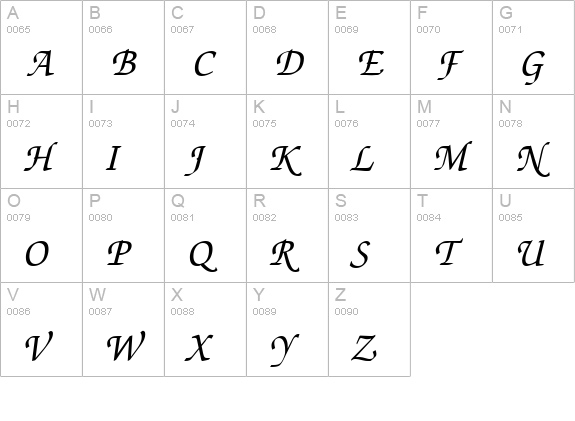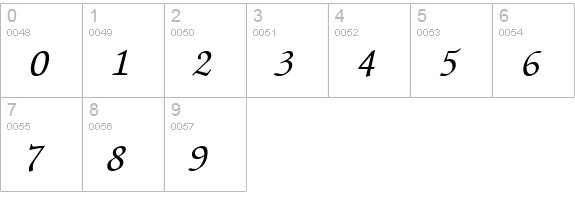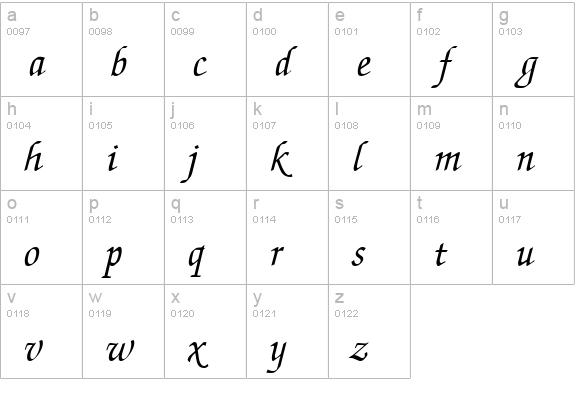
QTChanceryType Italic Font Details
QTChanceryType Italic is a distinctive, italic variant in the QTChanceryType typeface family \xE2\x80\x94 well suited to design and typography projects.
QTChanceryType Italic is a stunning font that exudes elegance and sophistication. Its delicate and flowing letterforms create a sense of grace and charm, making it perfect for adding a touch of class to any design project. The italic style adds a sense of movement and dynamic energy, capturing attention and drawing the eye with its stylish flair. This font is not only visually appealing but also versatile, making it suitable for a wide range of applications. Whether you're designing a wedding invitation, creating a logo for a high-end brand, or crafting a magazine layout, QTChanceryType Italic will elevate your design to new heights. One of the best things about QTChanceryType Italic is that it is freely available to download at FontsMarket.com. This means that you can enjoy the beauty and sophistication of this font without any cost. FontsMarket.com provides a wide selection of high-quality fonts, and QTChanceryType Italic is just one of the many gems you can discover on their platform. So, if you're looking for a font that combines elegance, versatility, and cost-effectiveness, look no further than QTChanceryType Italic. Download it for free at FontsMarket.com and let your creativity shine.